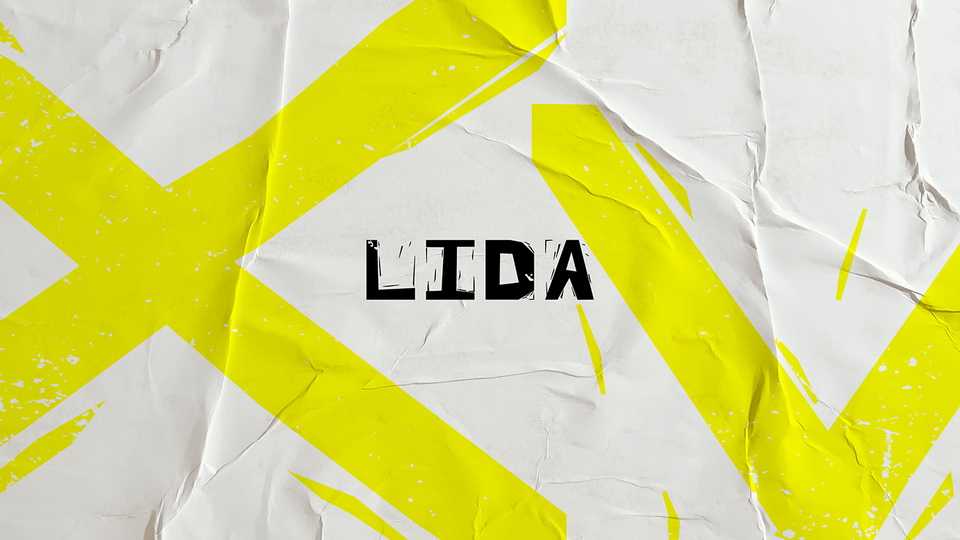
Download Lida font, a display typeface inspired by paper cut and linocut. The letters of Lida have the effect that handmade printing can leave on the paper.
Designer: Köteles Tamás